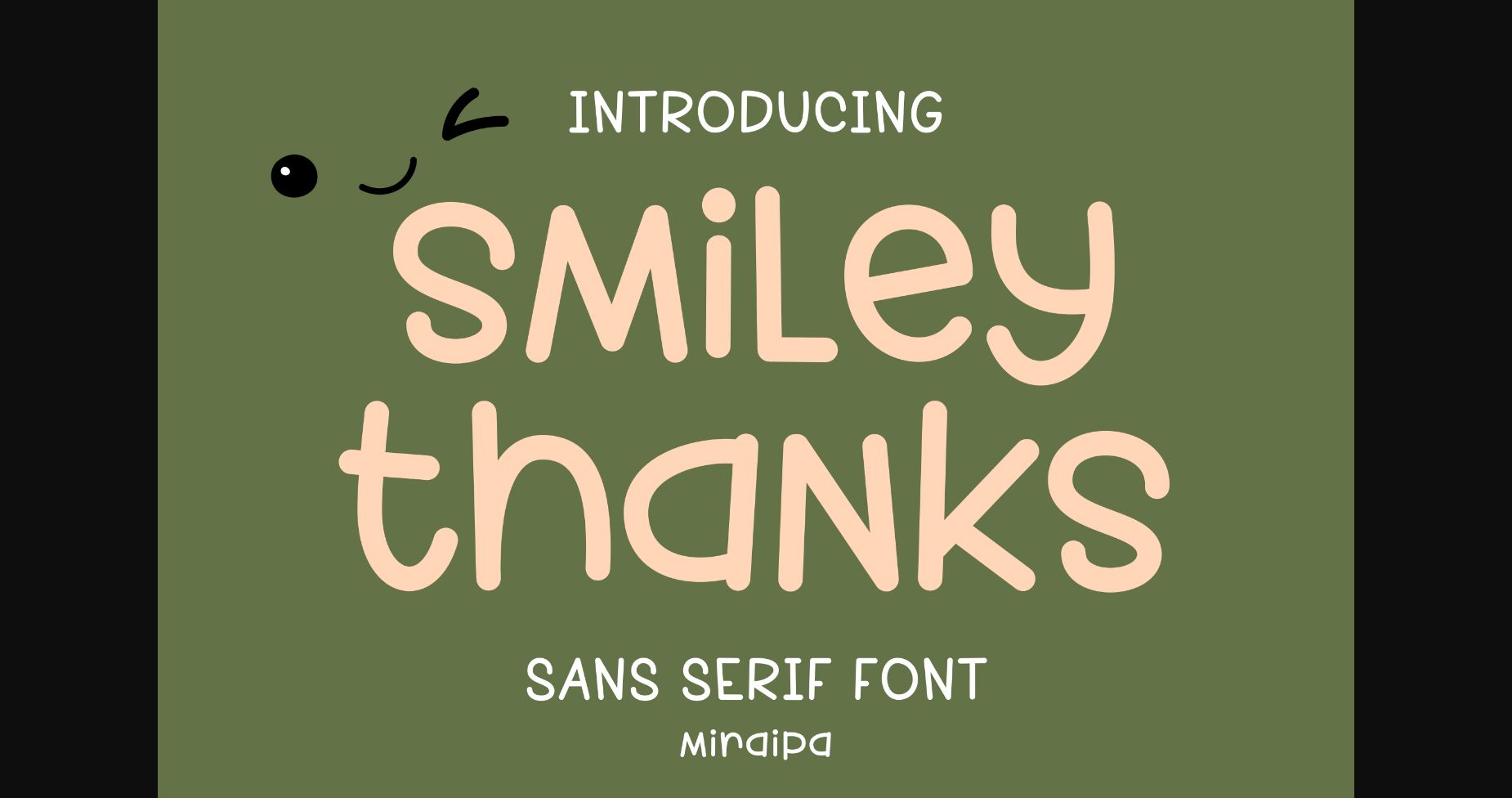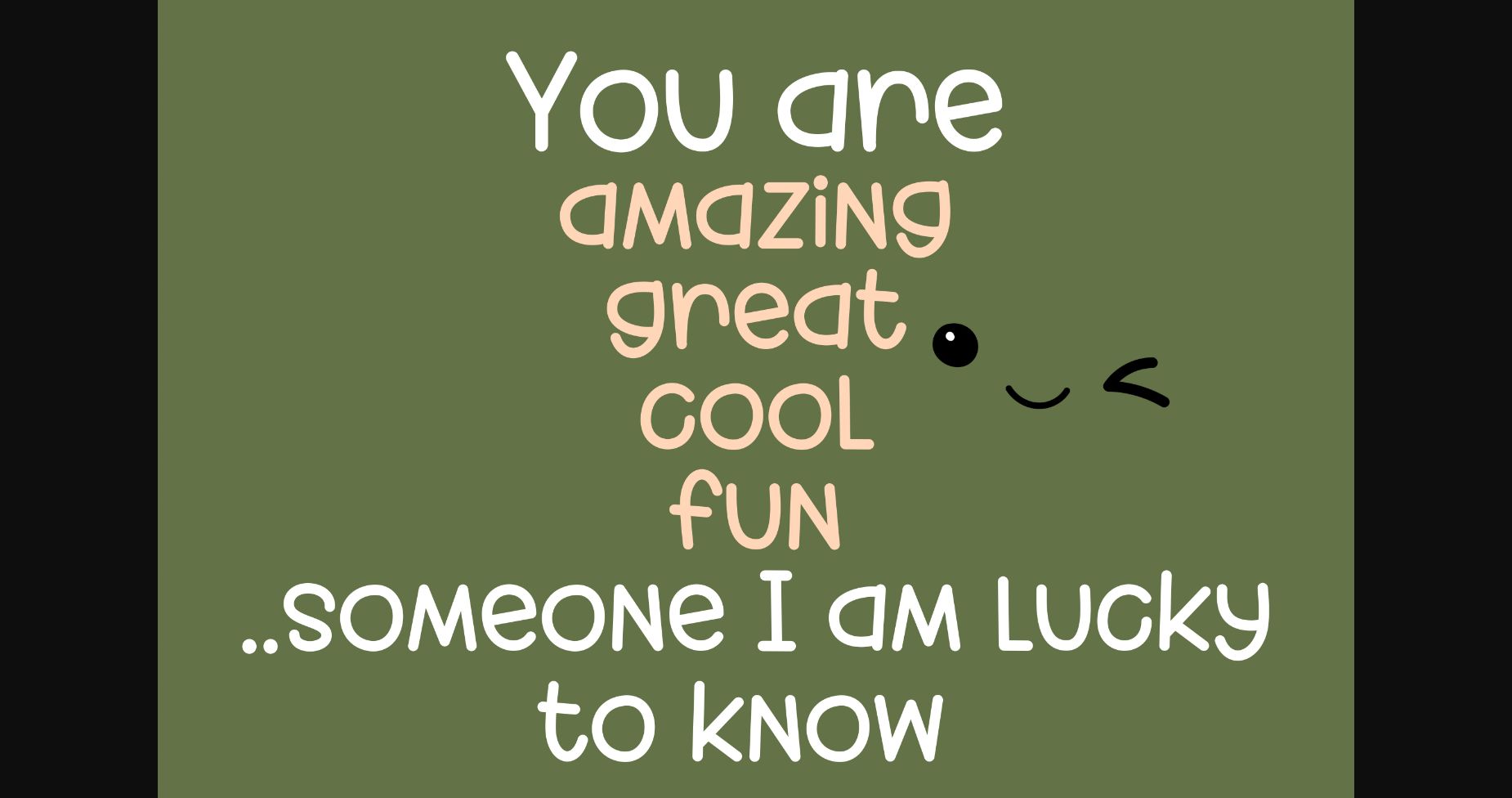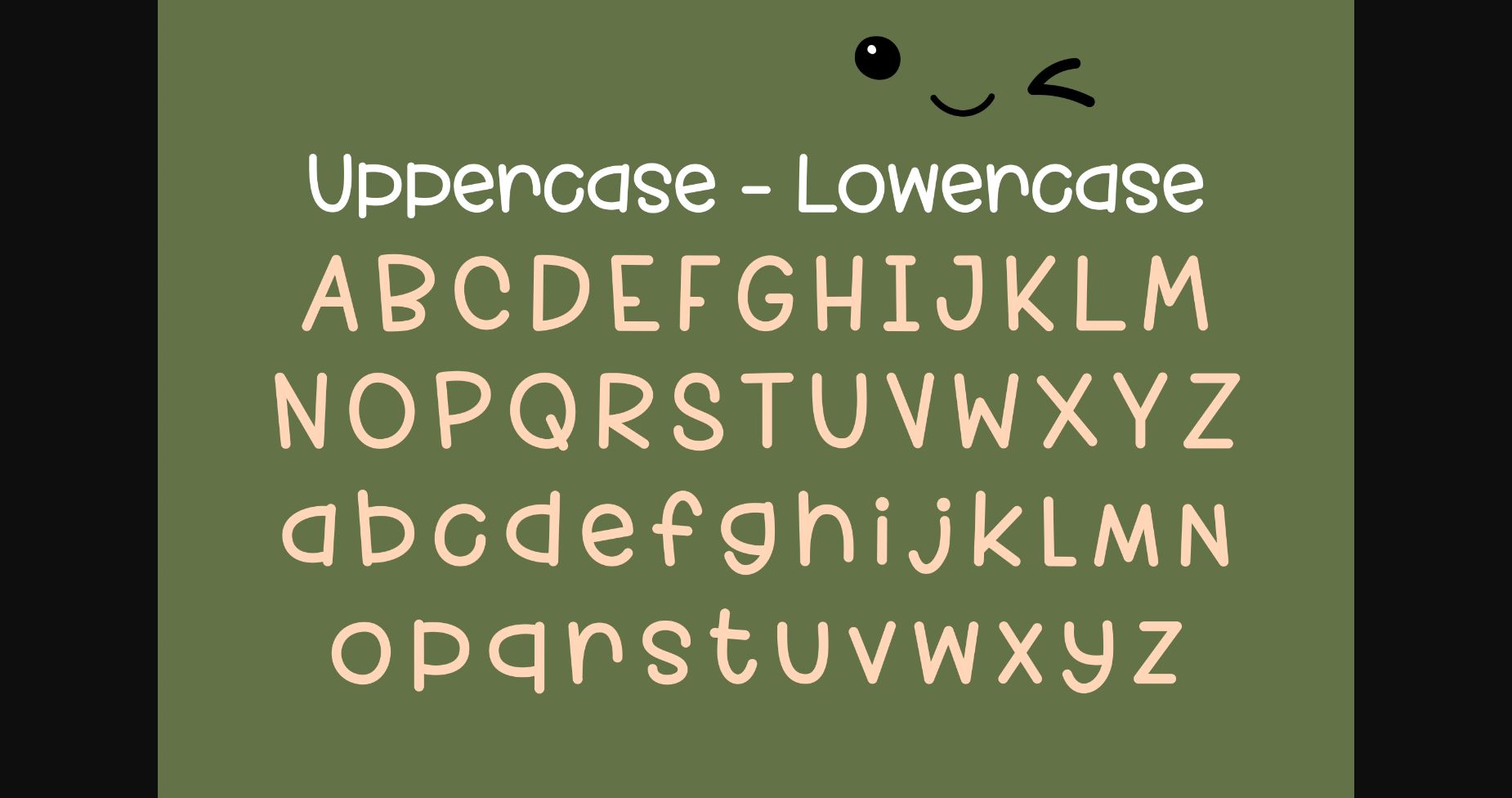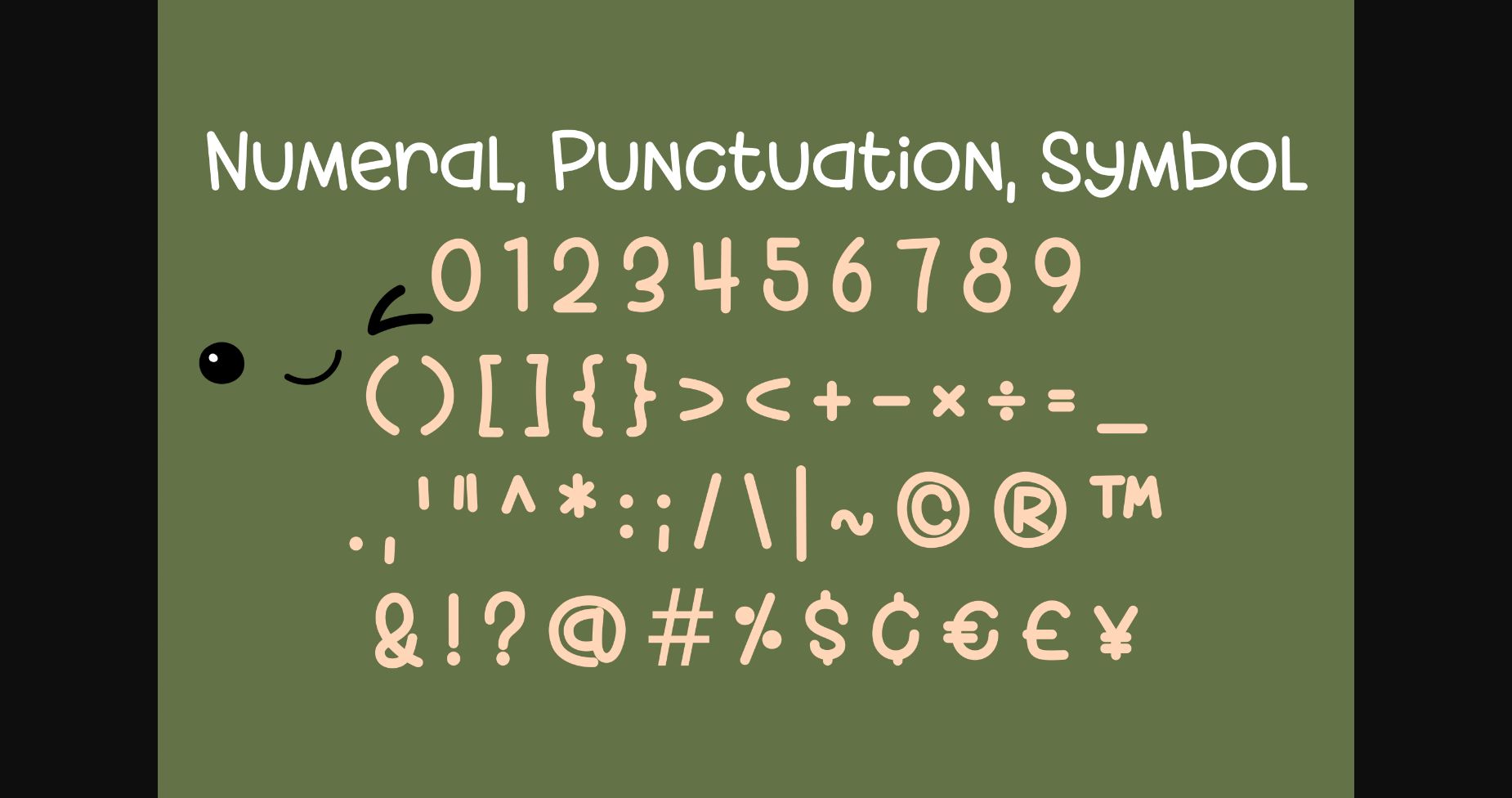
Smiley Thanks Font
About Smiley Thanks Font
Smiley Thanks is designed in a cute and friendly handwritten sans serif font style. It is an awesome choice for your projects or diary planner. Try it for project ideas such as Easter, back to school, weddings, party decorations, invitations, Fall, Halloween, Christmas, posters, blogs, clothing, child-related designs, greeting cards, social media posts, or anything that needs a friendly touch. Add it now to your fonts library, and it will bring any of your DIY projects to life.